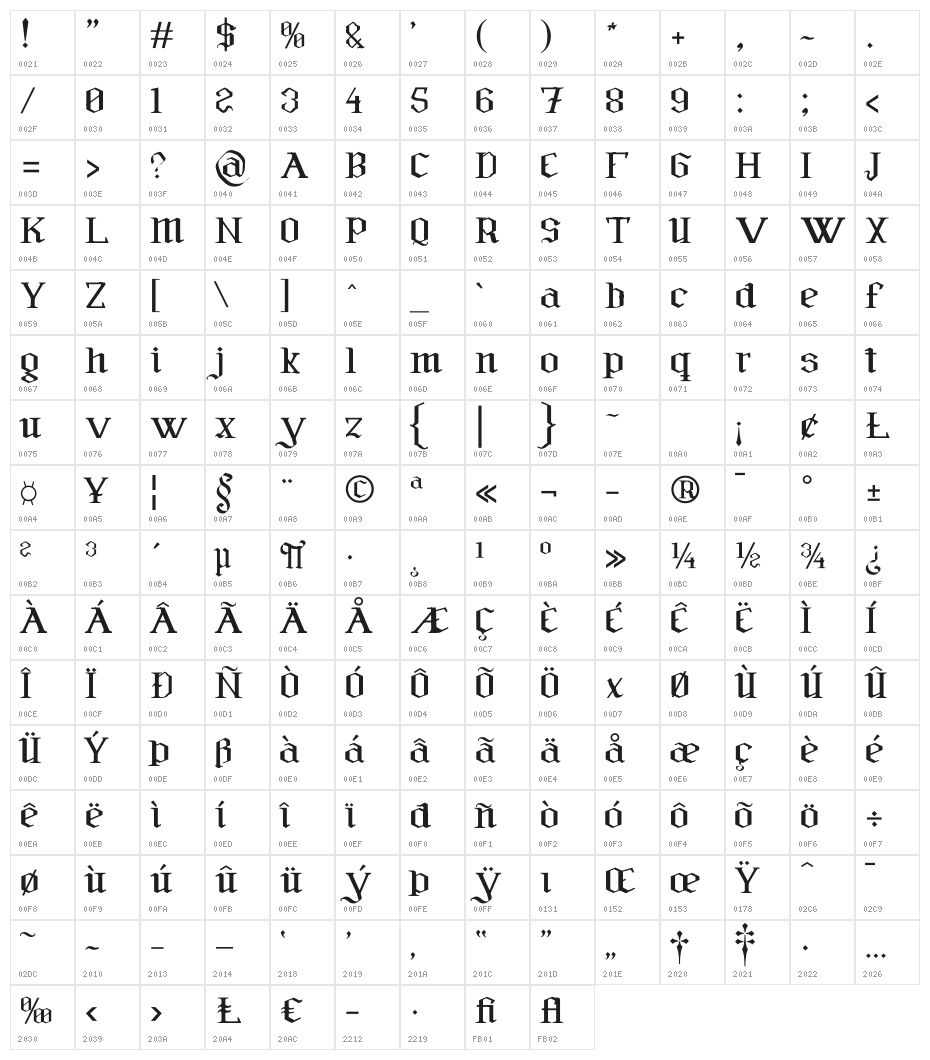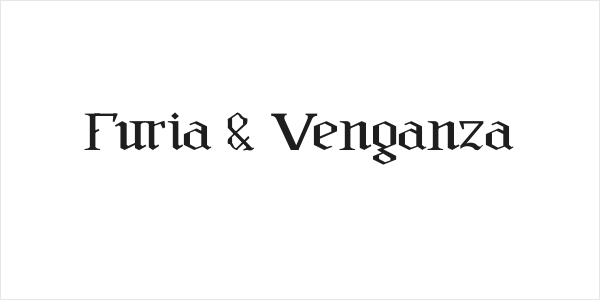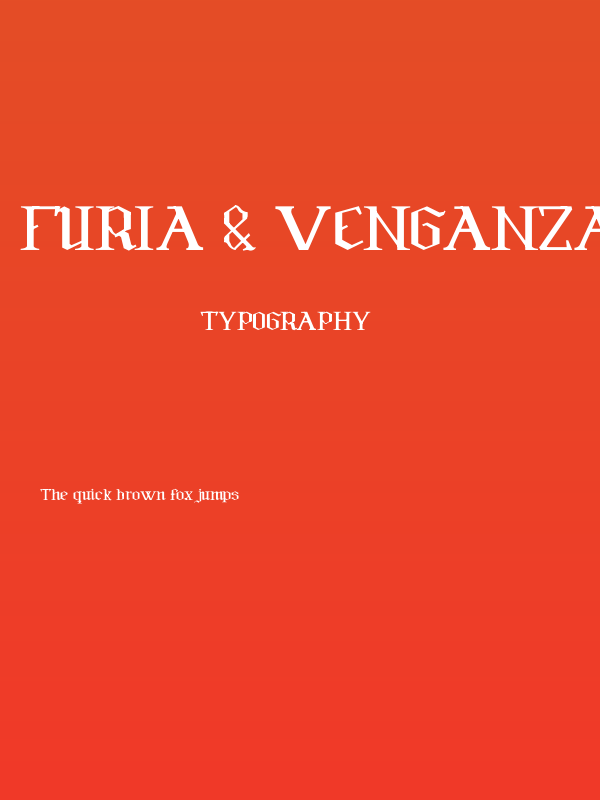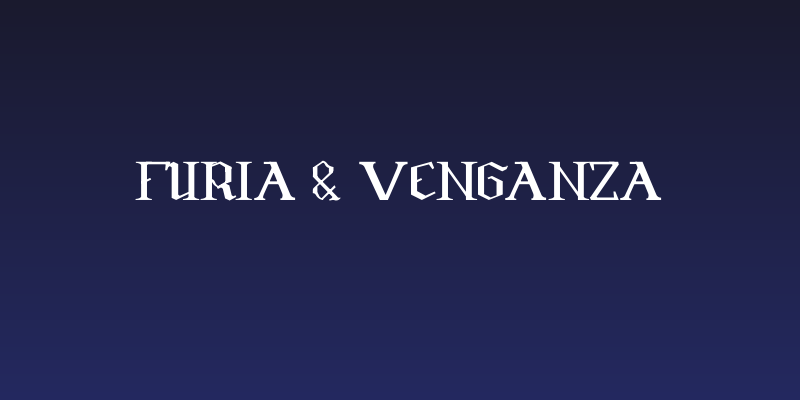
Furia & Venganza Font
Furia & Venganza Description
This font features a bold and striking design with sharp, angular lines and a distinct Gothic influence. The uppercase letters are characterized by their strong vertical strokes and pointed serifs, giving them a commanding presence. The lowercase letters maintain the same angular style, with unique flourishes that add to the overall dramatic effect. The numerals are equally bold, with a consistent thickness that complements the letterforms. Special characters are designed with the same attention to detail, ensuring a cohesive look across all glyphs. This font's high contrast between thick and thin strokes enhances its readability while maintaining its decorative appeal.